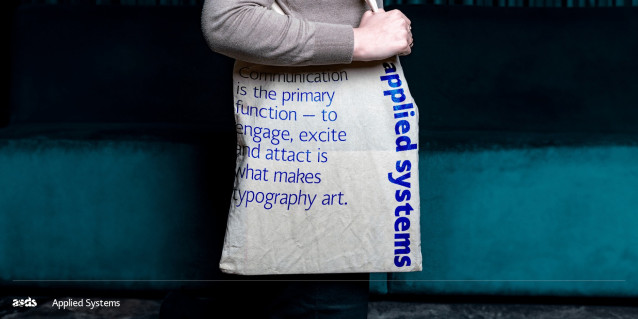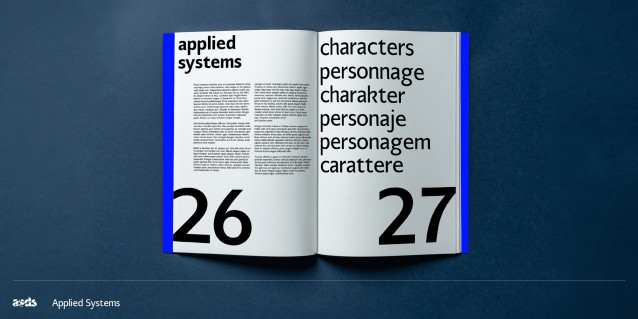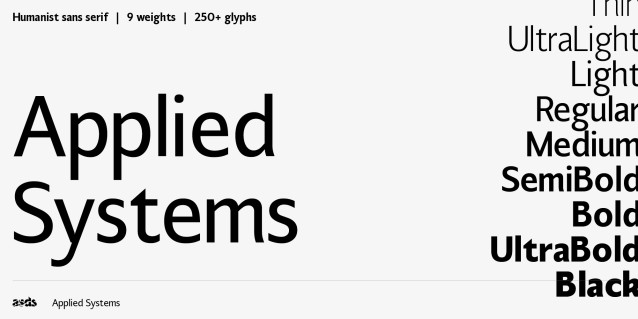
Applied Systems Font Family
Applied Systems Font Family is a humanist sans serif typeface that blends modern structural systems with subtle organic qualities. The concept behind the design was to create a formulaic rhythm that contrasts with the nuanced imperfections characteristic of the humanist tradition. Its well proportioned x-height ensures strong legibility across a range of sizes, while distinctive detailing lends the typeface a unique and recognisable personality. Originally designed for print, Applied Systems is a robust typeface that also performs well in digital environments.